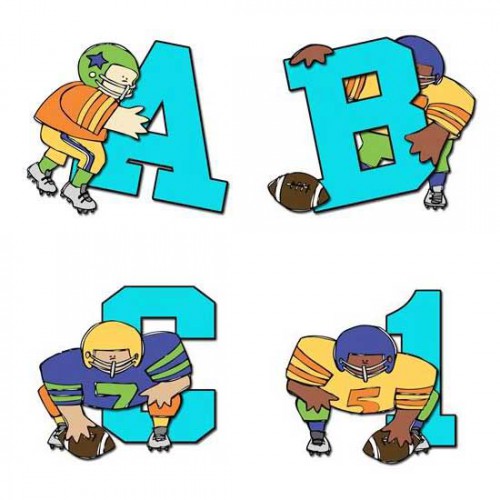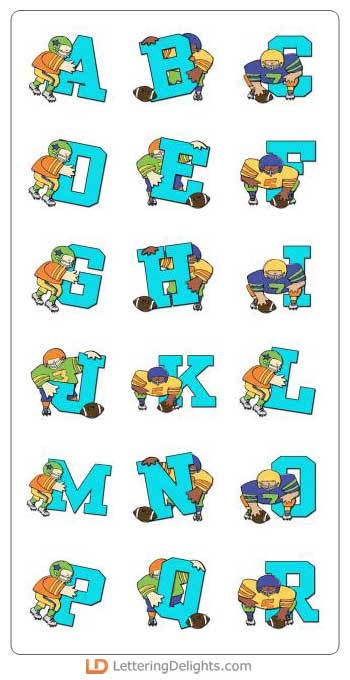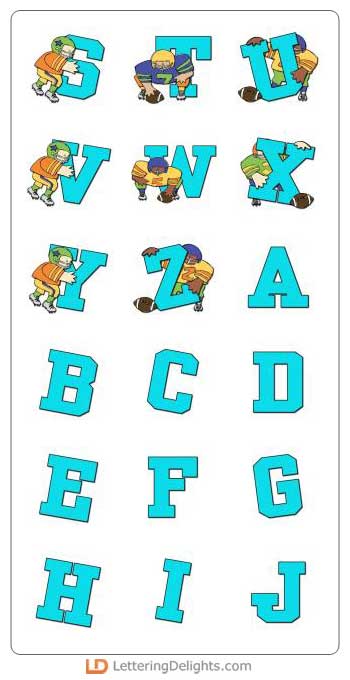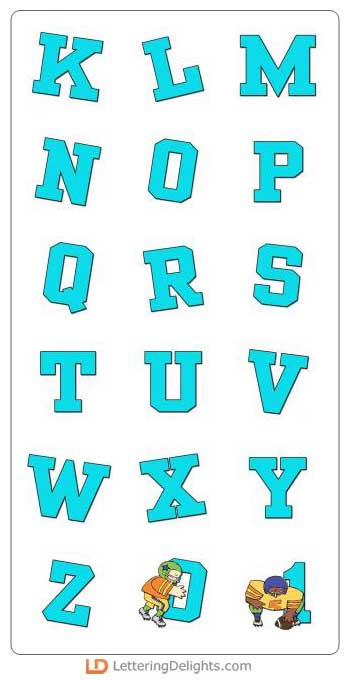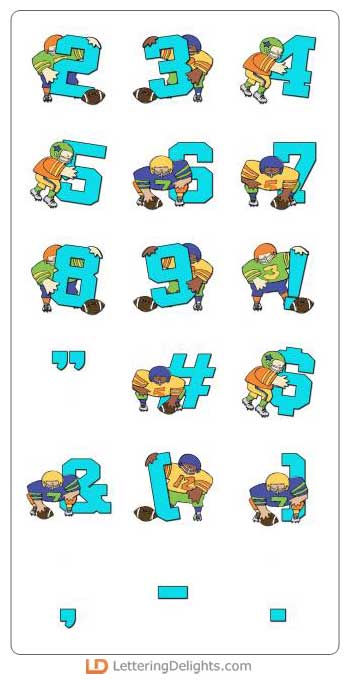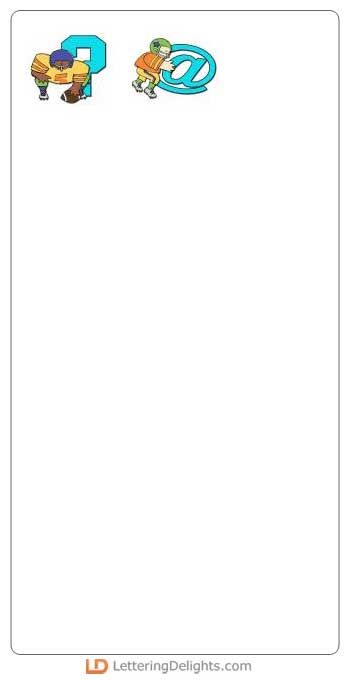
Hulking football players are playing around the letters of this alphabet. These digital images are perfect for superbowl party invitations, sports newsletters or scrapbook pages, especially when paired with the matching football Journaling Delights set.